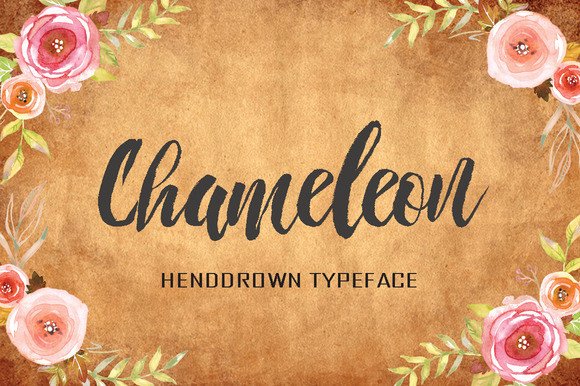
Behold Chameleon Font, a masterpiece crafted by Danti, where art and elegance intertwine. This enchanting script font family is a symphony of modern calligraphy and classic hand-drawn styles, capturing the essence of creativity and imagination.
Chameleon Font isn't just a collection of letters; it's a gateway to a world of artistic expression. Picture your words dancing across the page, imbued with personality and flair. Let Chameleon Font be your muse, transforming ordinary text into captivating works of art.
Imagine your wedding invitations adorned with Chameleon Font, the graceful curves and swirls adding a touch of timeless romance. Envision your designs and posters bursting with energy and style, thanks to Chameleon Font's dynamic and eye-catching strokes.
Unleash your creativity with Chameleon Font, the perfect choice for badges, labels, and t-shirts. Its versatility knows no bounds, allowing you to effortlessly elevate your projects to new heights of design excellence.
With Chameleon Font, you're not just downloading a font; you're embracing an artistic revolution. Let your imagination run wild as you explore the endless possibilities that await.